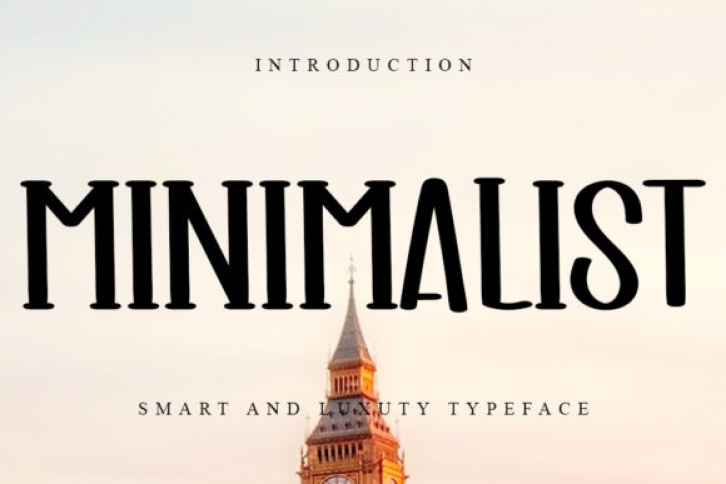
Minimalist is a beautiful, even serif font. With very well-spaced and pleasantly sleek characters, this font will be the perfect choice for a wide range of creations such as magazine titles, books, social media posts, statements, and so much more!